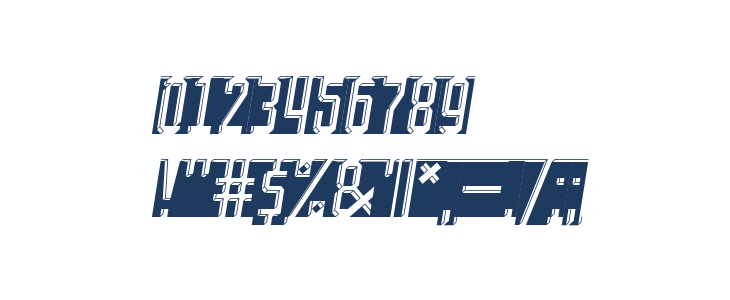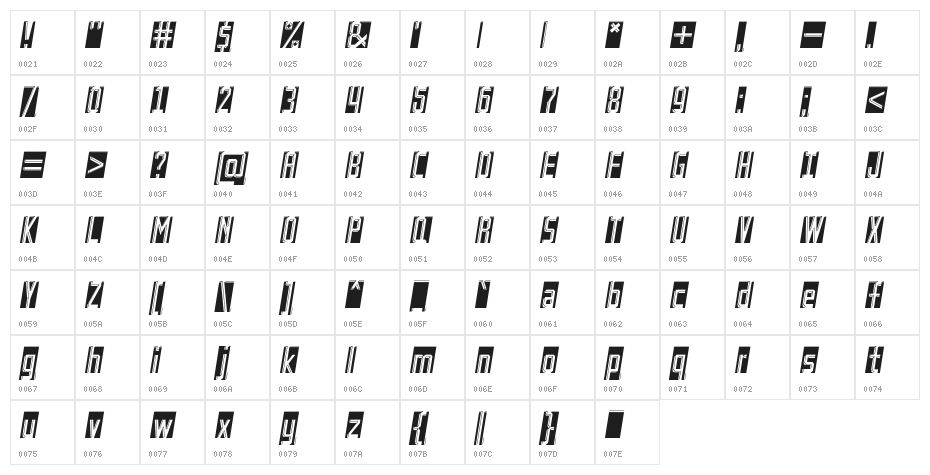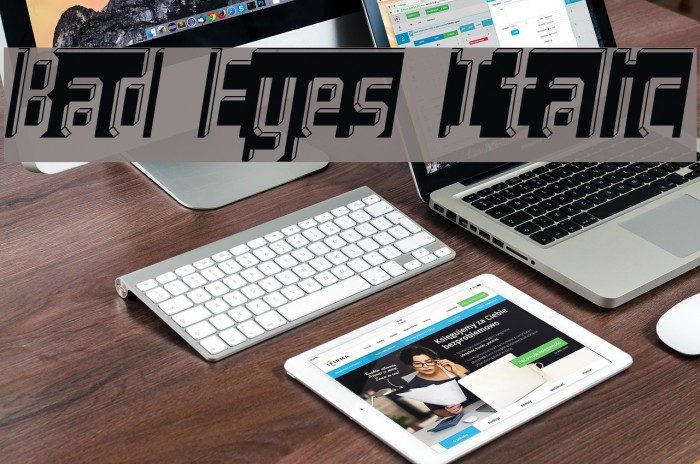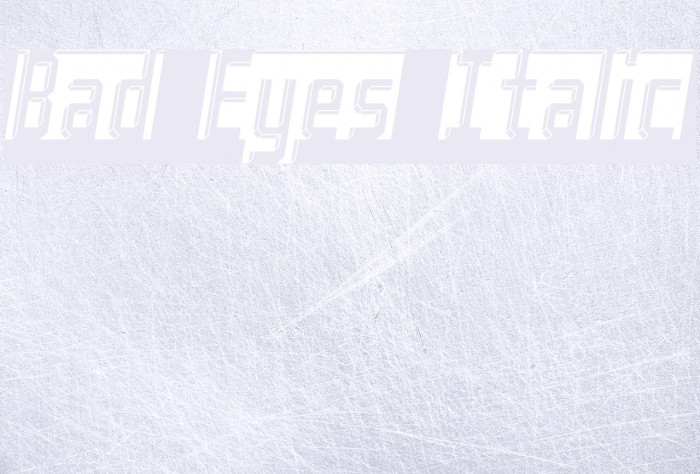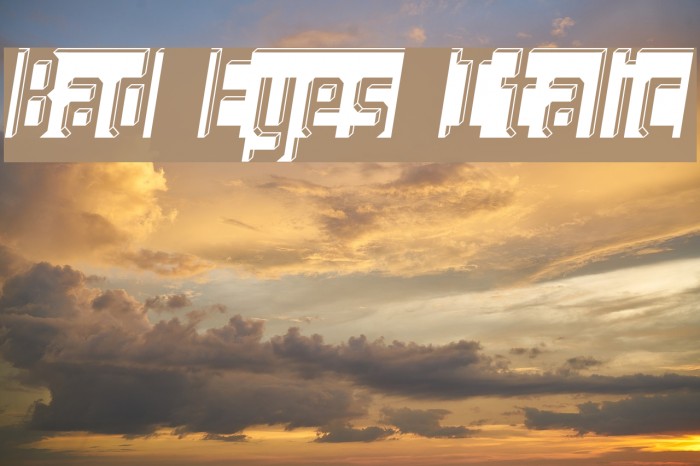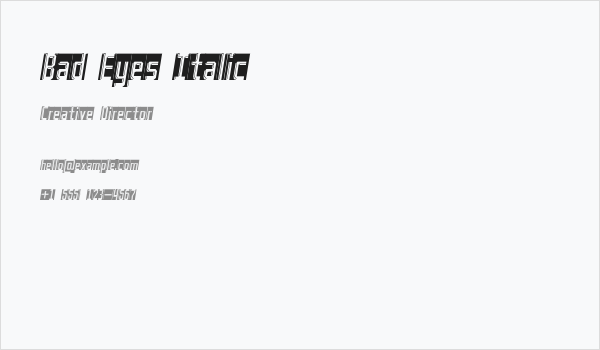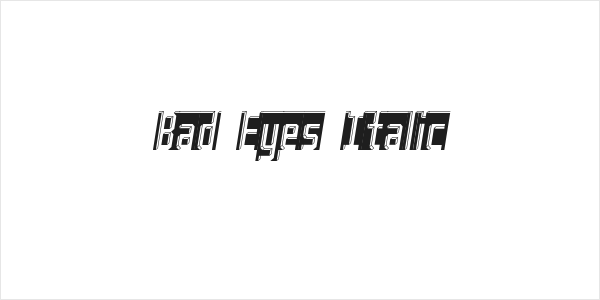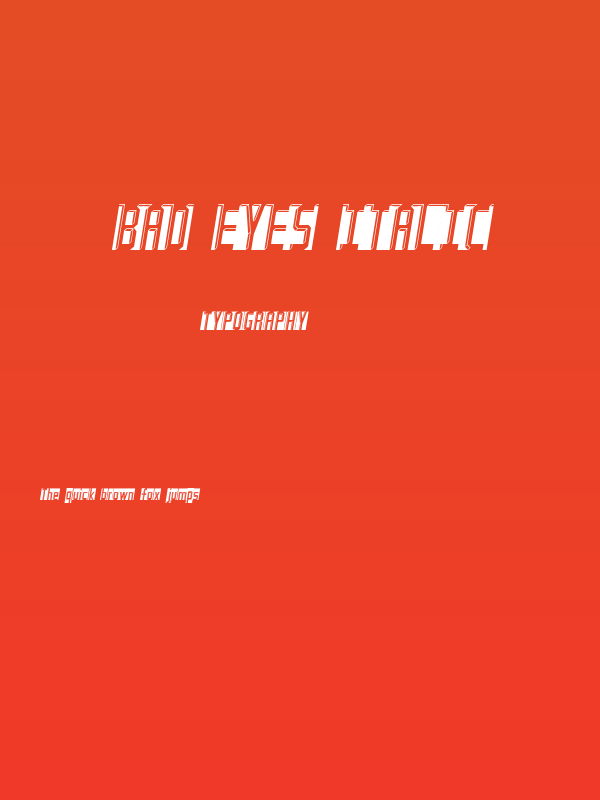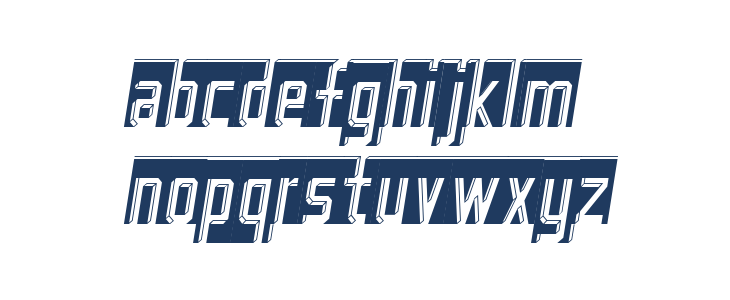
Bad Eyes Italic Font
Bad Eyes Italic Description
This font features a bold, italicized style with a distinct 3D shadow effect, giving it a striking and dynamic appearance. The characters are angular and geometric, with sharp edges and a consistent slant that enhances the italicized look. The uppercase and lowercase letters maintain a uniform width, contributing to a cohesive design. The numbers and special characters follow the same stylistic approach, ensuring visual harmony across all elements. The font's boldness and shadowing make it highly suitable for impactful designs where attention is key.
| Proposed Projects | Ideal for posters, logos, video game graphics, and edgy branding materials. |